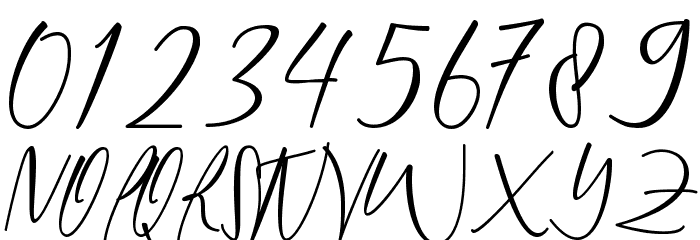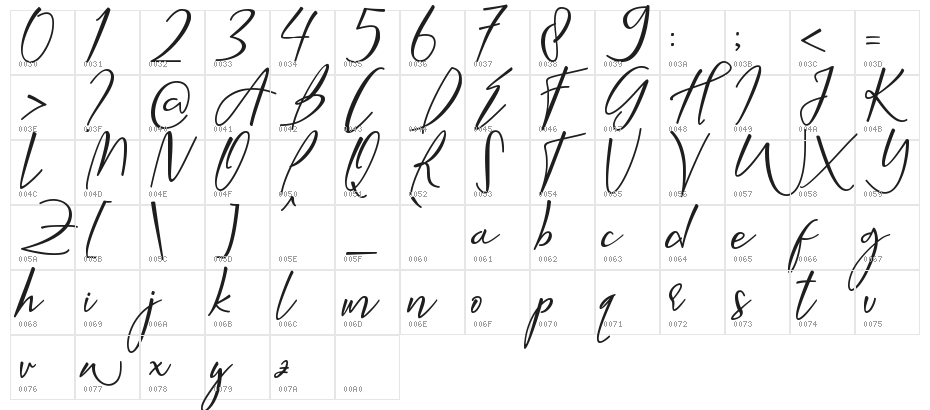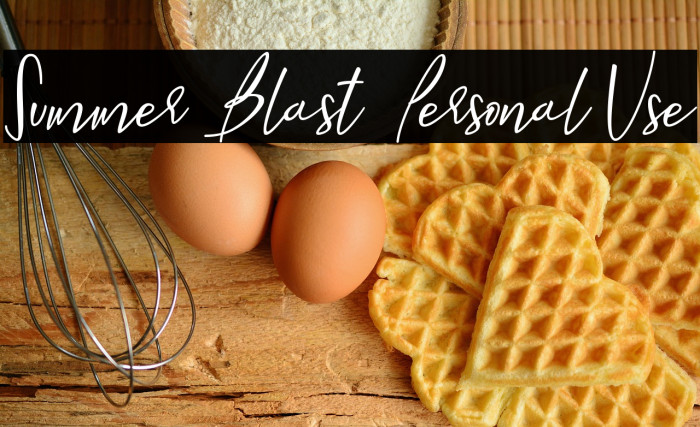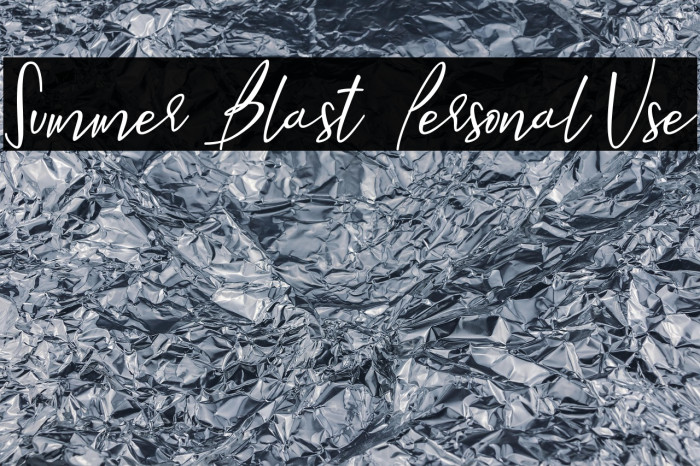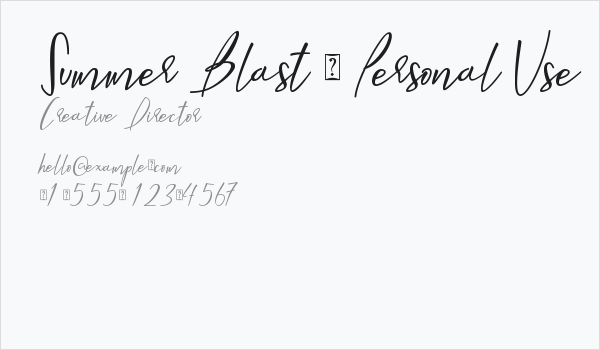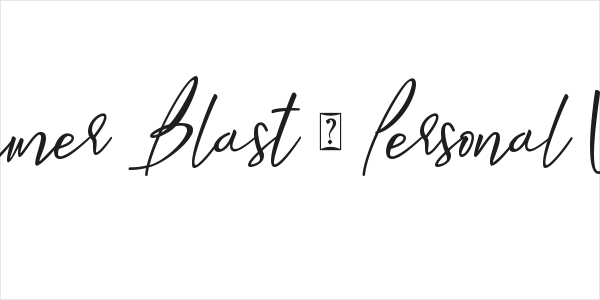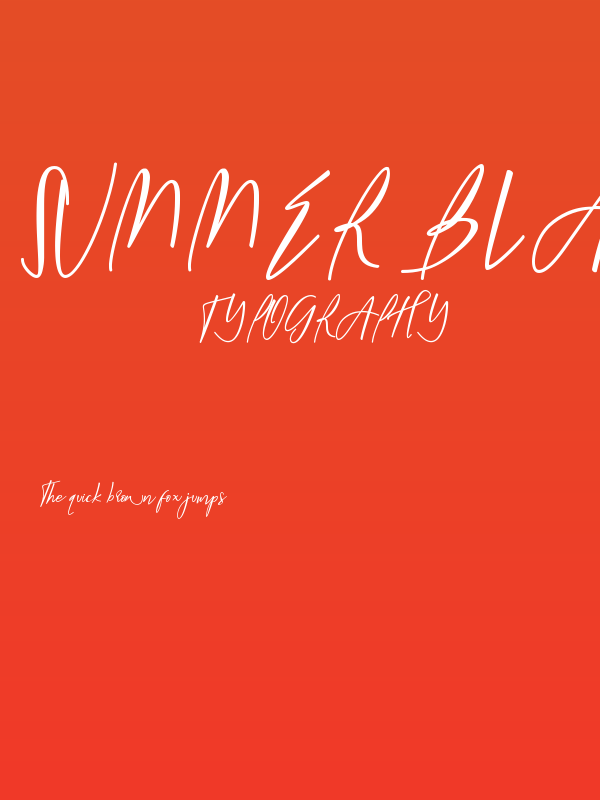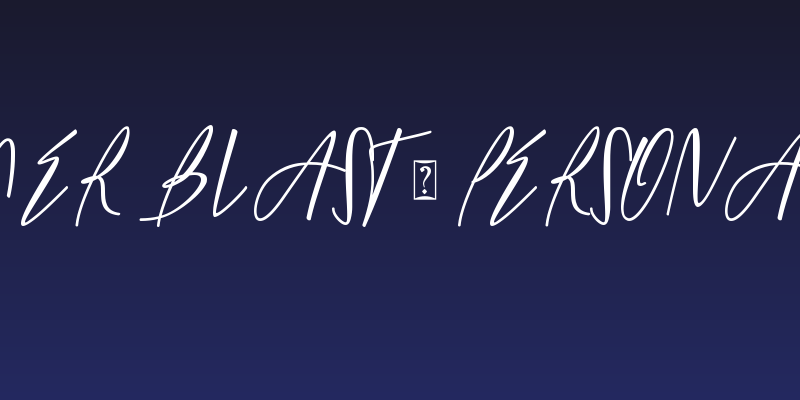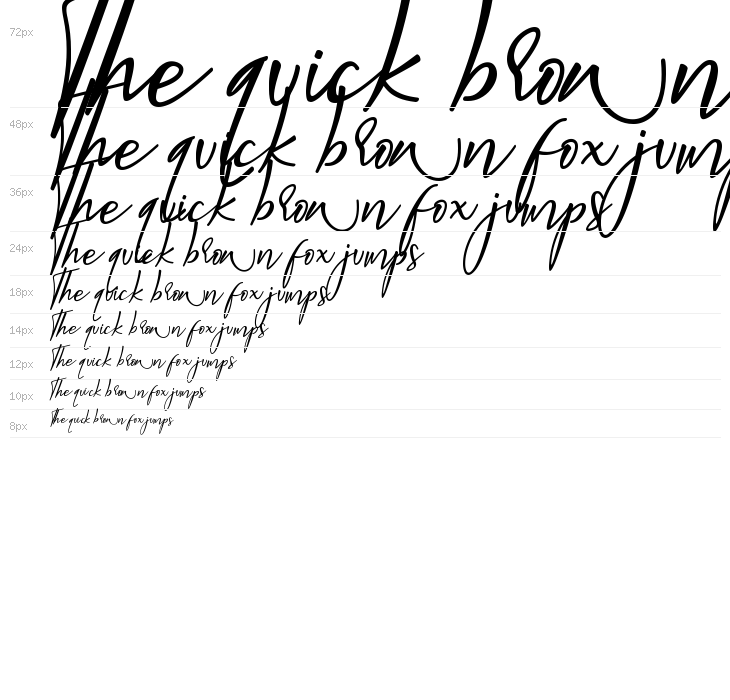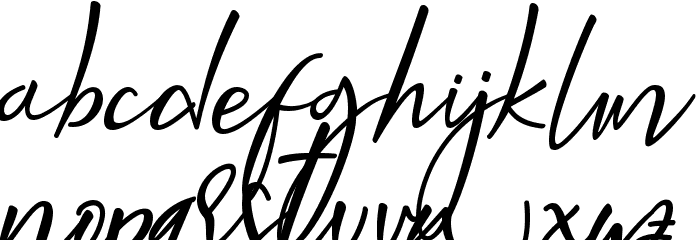
Summer Blast - Personal Use Font
Summer Blast - Personal Use Description
This font exudes a lively and energetic style, characterized by its flowing, cursive script. The letters are interconnected with smooth, sweeping strokes that give it a handwritten feel. The uppercase letters are elegant and slightly elongated, while the lowercase letters maintain a consistent rhythm and fluidity. The numbers and special characters follow the same dynamic style, ensuring a cohesive look across all elements. This font is perfect for projects that require a personal and artistic touch, such as invitations, greeting cards, or branding materials.
| Use Case | Logos, Headlines, Artistic projects |
| Proposed Projects | Ideal for invitations, greeting cards, branding, and artistic projects. |